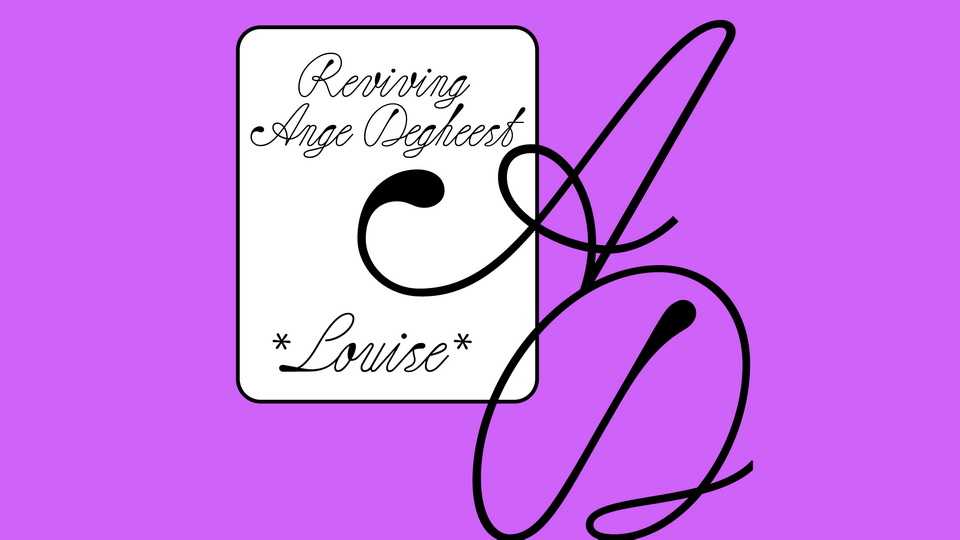
Download Loise font, a digitized version of the typeface designed by Ange Degheest. Louise script features monoline aspect of writing and is build on a mechanical structure, reminiscent of the aesthetic of neon signs.
Designer: Luna Delabre